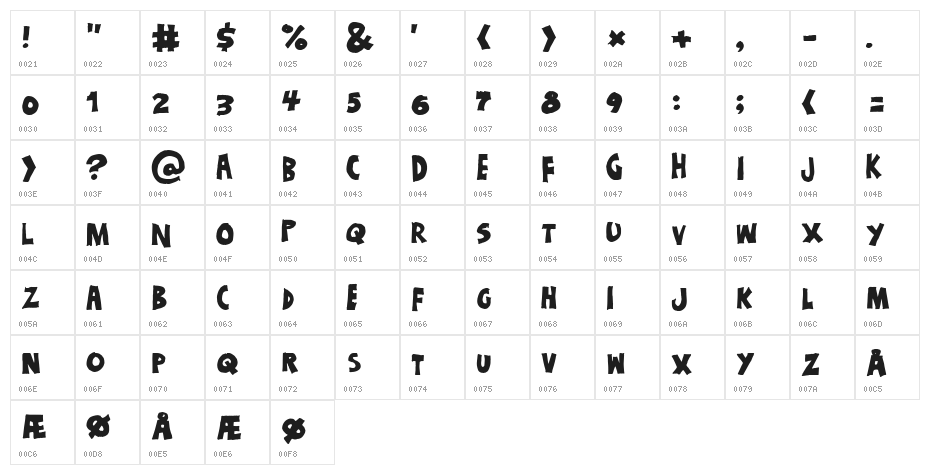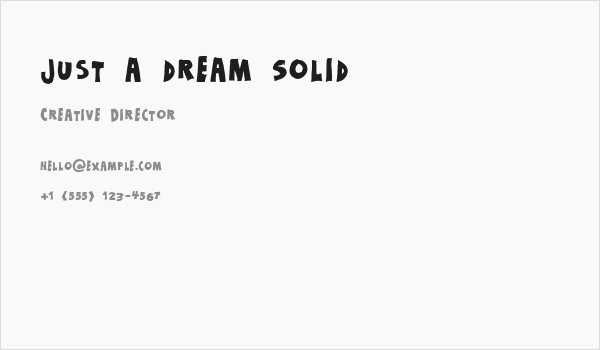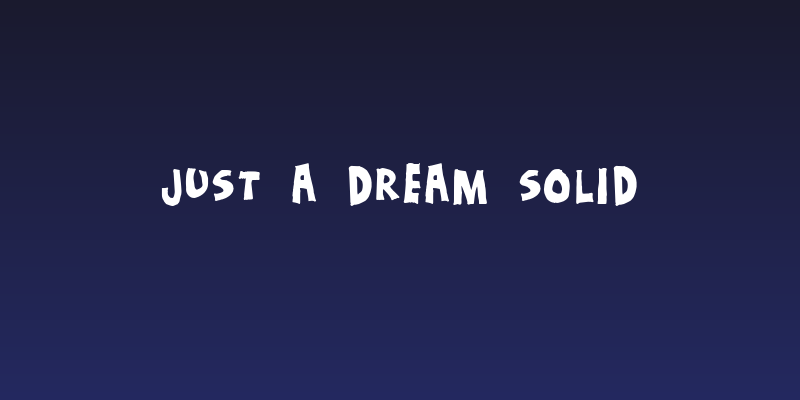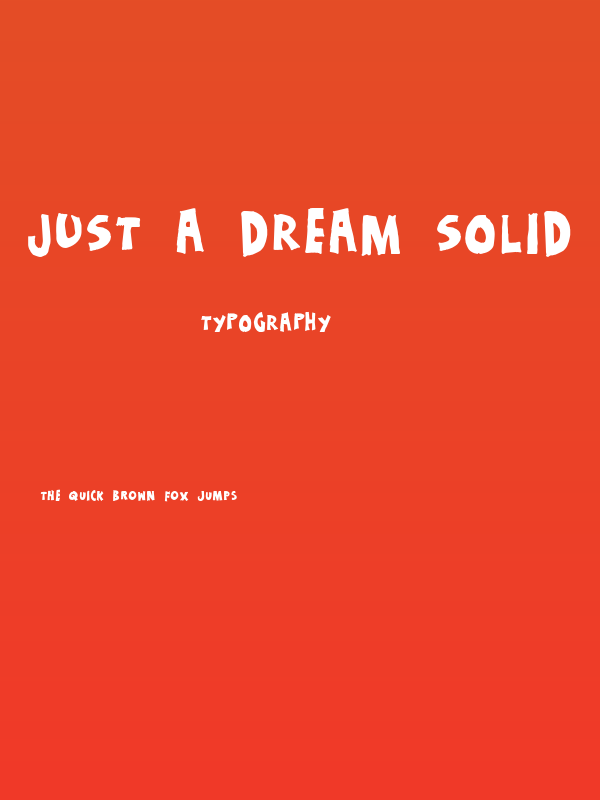
Just a dream Solid Font
Just a dream Solid Description
This font features a playful and bold style with irregular, hand-drawn characters that give it a whimsical and energetic feel. The letters are thick and slightly uneven, adding a sense of movement and dynamism. The uppercase and lowercase letters maintain a consistent style, with rounded edges and a slightly rough texture that enhances its casual appearance. Numbers and special characters follow the same design principles, ensuring a cohesive look across all elements. This font is ideal for projects that require a fun and informal touch.
| Proposed Projects | Ideal for children's books, playful branding, party invitations, and casual posters. |